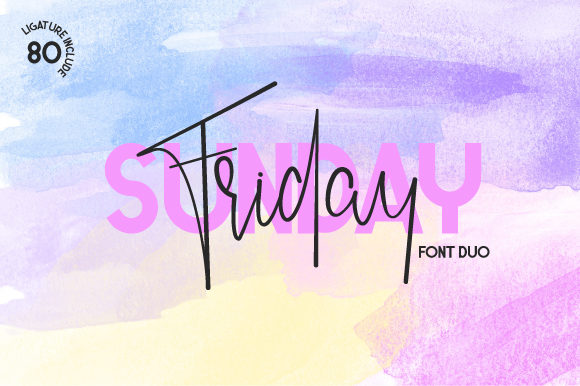
Prepare to be captivated by Friday Sunday Duo Font, the remarkable font duo that will transform your creative visions into breathtaking realities! Immerse yourself in the symphony of a graceful script and a crisp sans-serif font, meticulously orchestrated to create typographic masterpieces.
Unleash your imagination and let Friday Sunday Duo Font guide you through a limitless canvas of design possibilities. From elegant logos and captivating branding to enchanting wedding invitations and alluring social media posts, this font duo is your gateway to expressive artistry.
Indulge in the allure of Friday Sunday Duo Font's versatility, seamlessly adapting to any canvas you envision. Whether you're crafting advertisements that resonate with your audience or designing products that exude sophistication, this font duo will elevate your creations to new heights.
With Friday Sunday Duo Font, the boundaries of design dissolve. Embrace the limitless potential to showcase your brand's unique personality or inject a touch of whimsy into your personal projects. Let the harmonious blend of script and sans-serif fonts ignite your creativity and leave an unforgettable mark on every design you touch.
Cricut Vinyl enthusiasts, prepare to be enthralled! Friday Sunday Duo Font is your ultimate companion, transforming your vinyl creations into exquisite works of art. Whether you're designing custom decals, personalized home décor, or eye-catching accessories, this font duo will effortlessly elevate your projects to the next level.